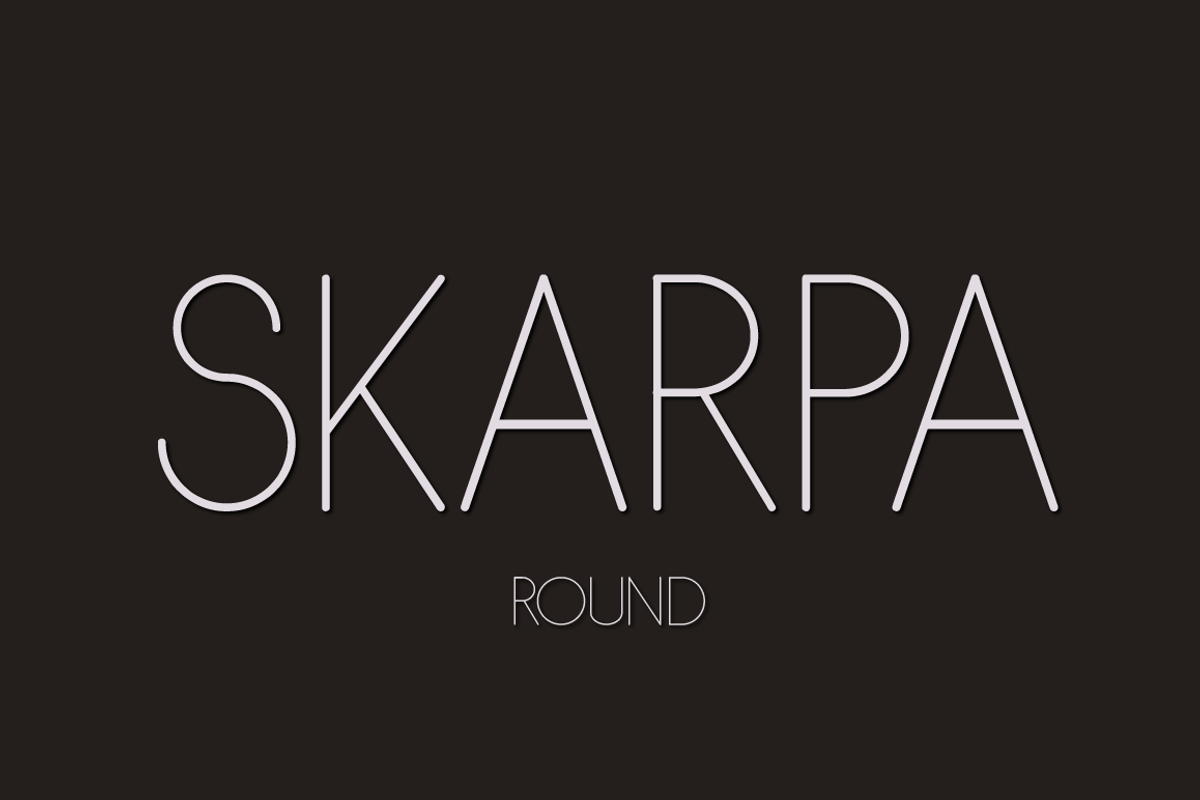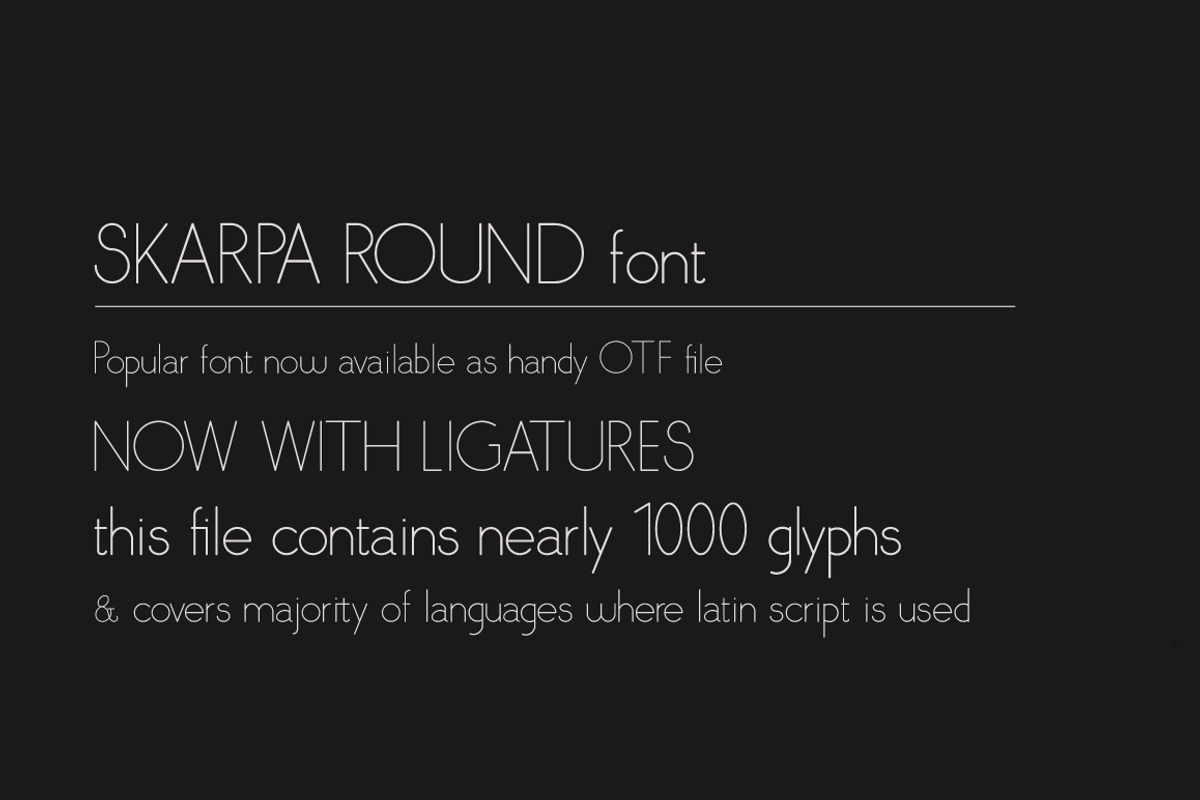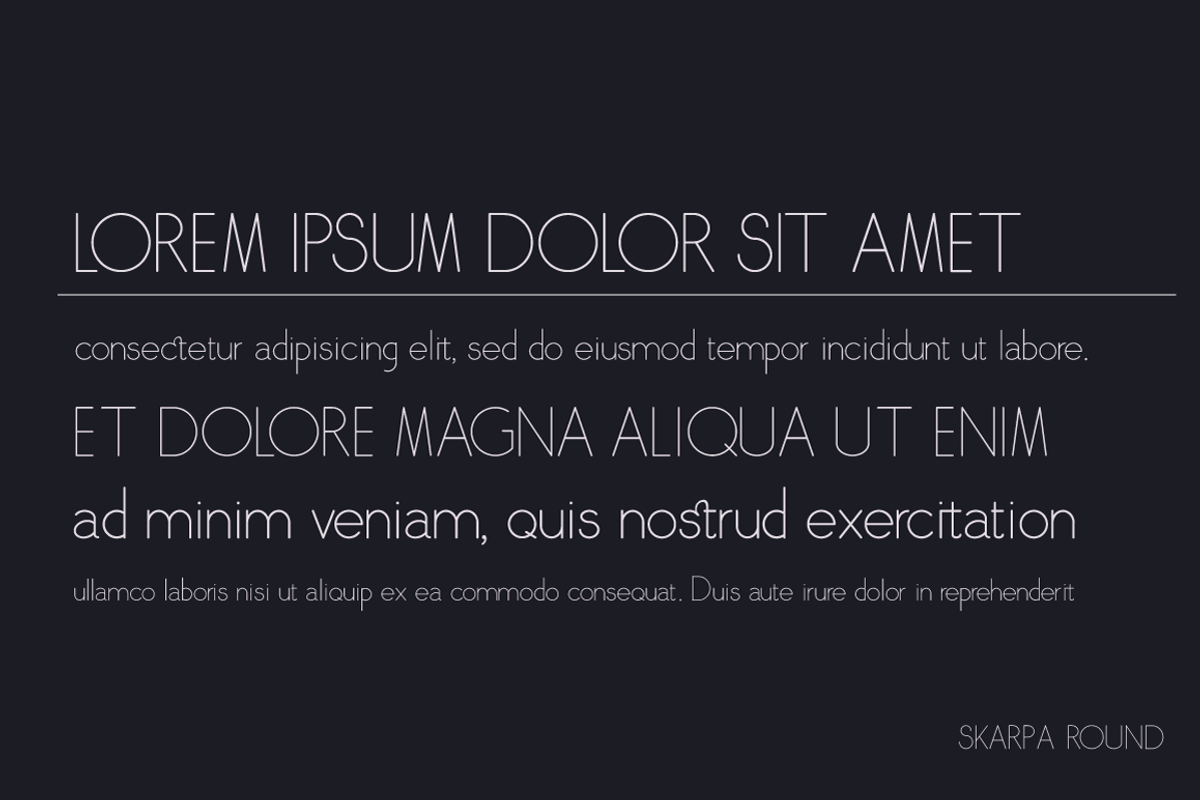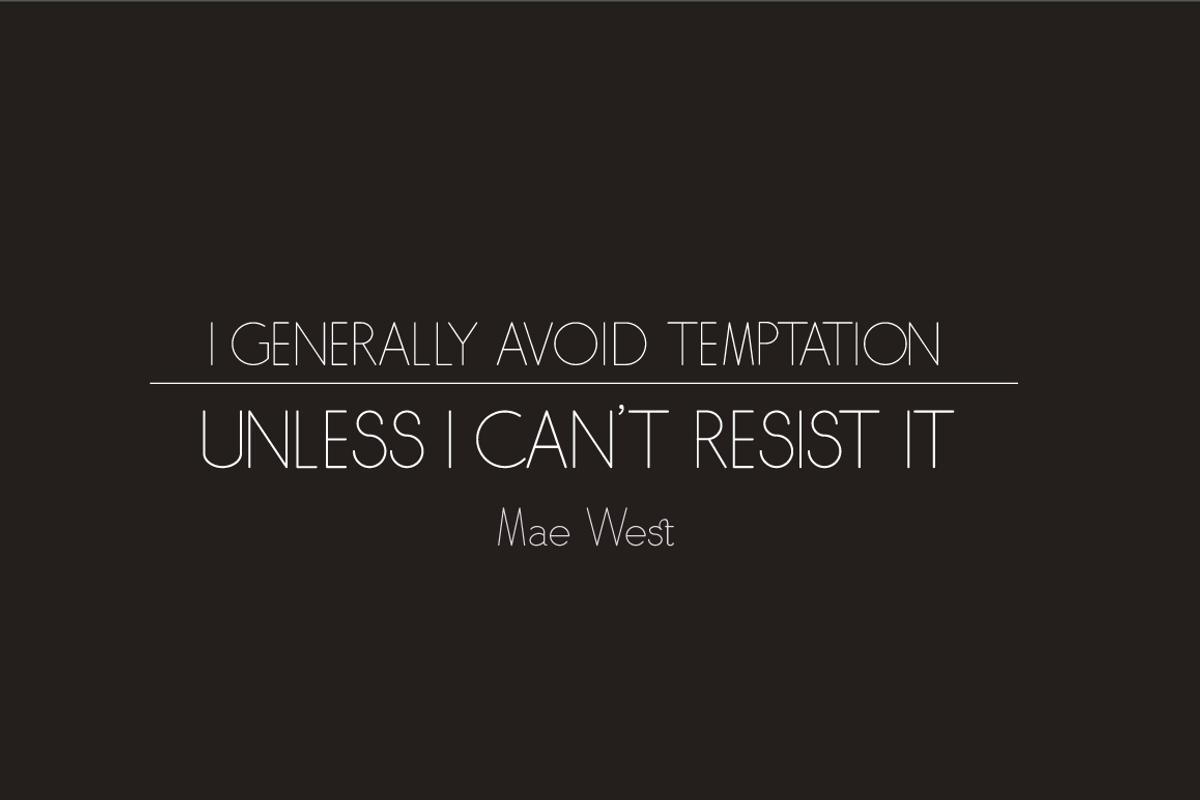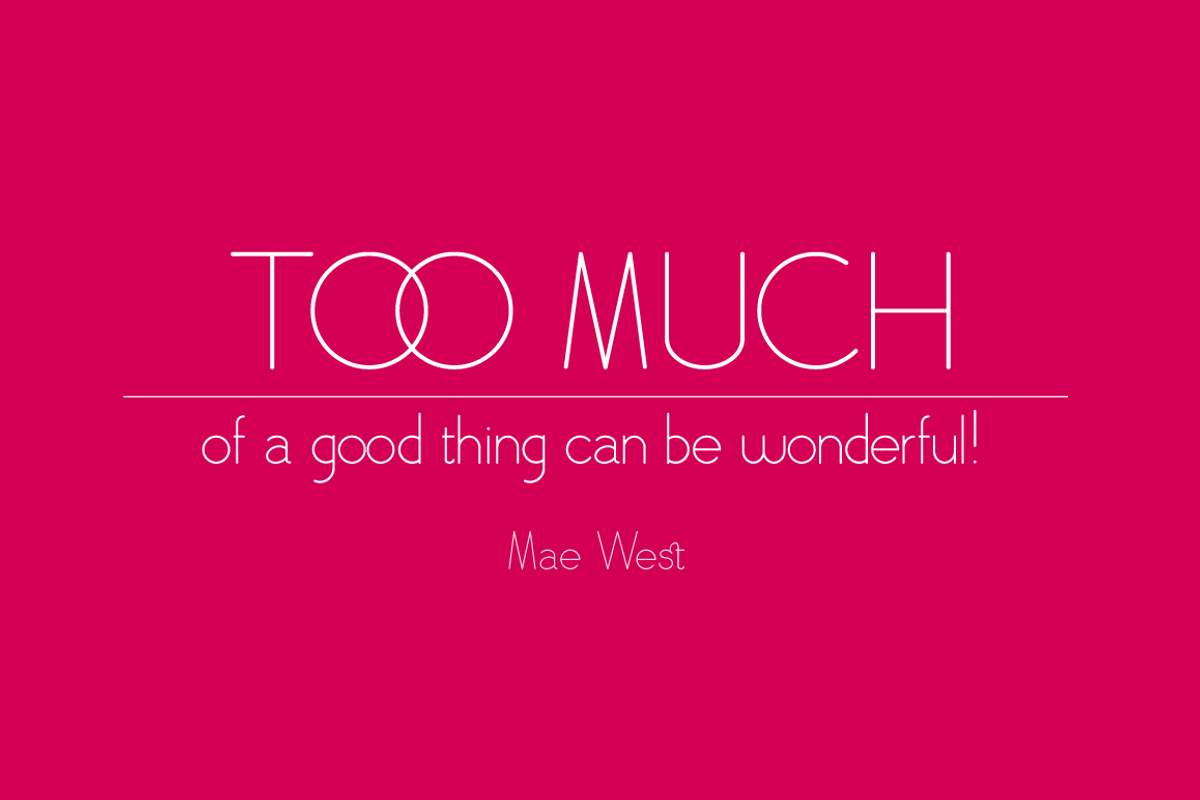
Skarpa Round.otf font
Skarpa Round.otf font by Aga Silva is a font selected for branding, posters, packaging, typography.
- This time the download includes Open Type Features such as Ligatures, and contains over 1000 glyphs that allow for creating texts in majorit
Why Skarpa Round.otf font is worth a look
Skarpa Round.otf font by Aga Silva fits naturally into Branding, posters, packaging, typography.